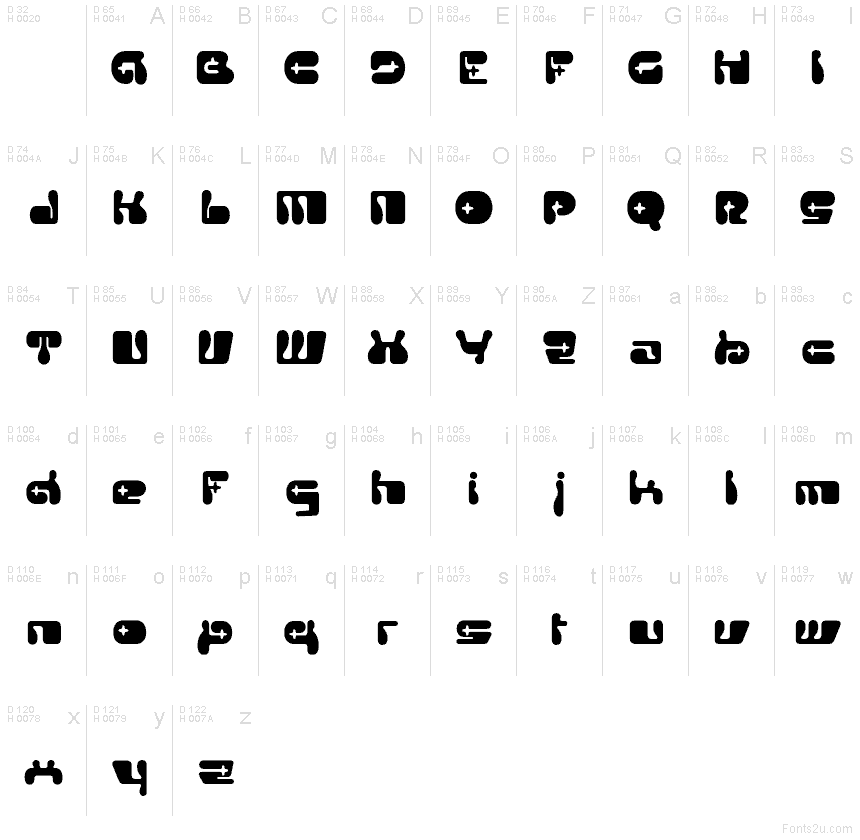
CS Doma Regular Demo
CS Doma font by Craft Supply Co. is an expanded bold display font that combines modernity, groovy style, and unique geometric shapes in its design. Its futuristic high-tech feel resembles video game aesthetics and makes the font look appropriate for experimental projects.